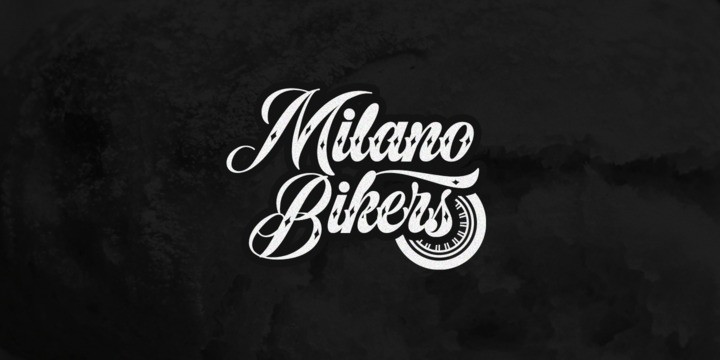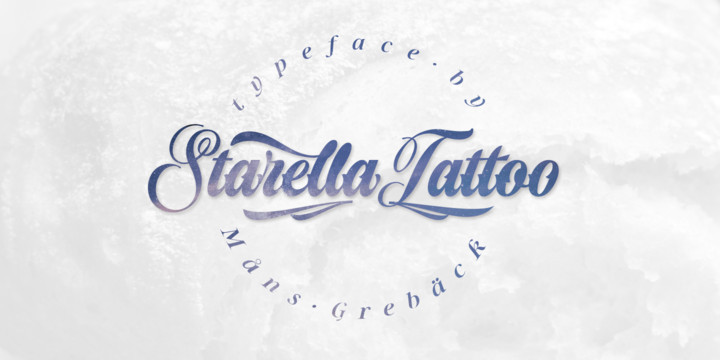
Starella Tattoo Font
Starella Tattoo is a professional typeface with flowing letter forms representing the merge between beauty and attitude.
The font is provided as a regular version, as well as a version decorated with diamonds in each letter.
Use symbols _ [ ] at any place in a word to create swashes. Example: S[tarellaTatt]oo